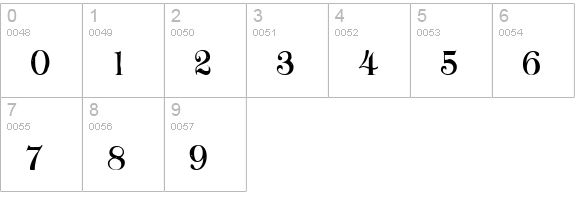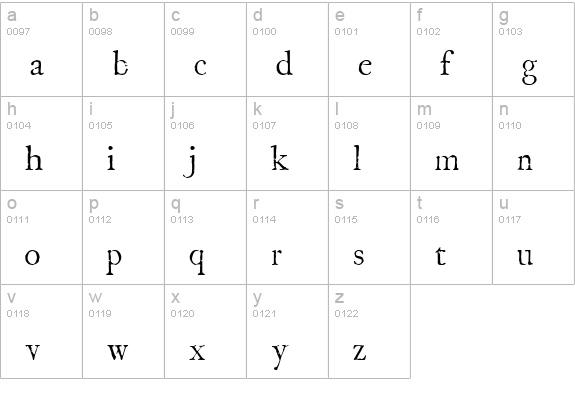
Boswell Font Details
Introducing Boswell font, a timeless and elegant typeface that exudes sophistication and charm. With its classic serifs and graceful curves, Boswell is perfect for adding a touch of class to your designs. Whether you're working on invitations, branding, or editorial projects, this versatile font will elevate your work to the next level. But the best part? Boswell font is completely free to download at FontsMarket.com! Yes, you read that right - you can enhance your projects with this stunning font without spending a penny. Don't miss out on this opportunity to elevate your designs with Boswell font, available for free download now.